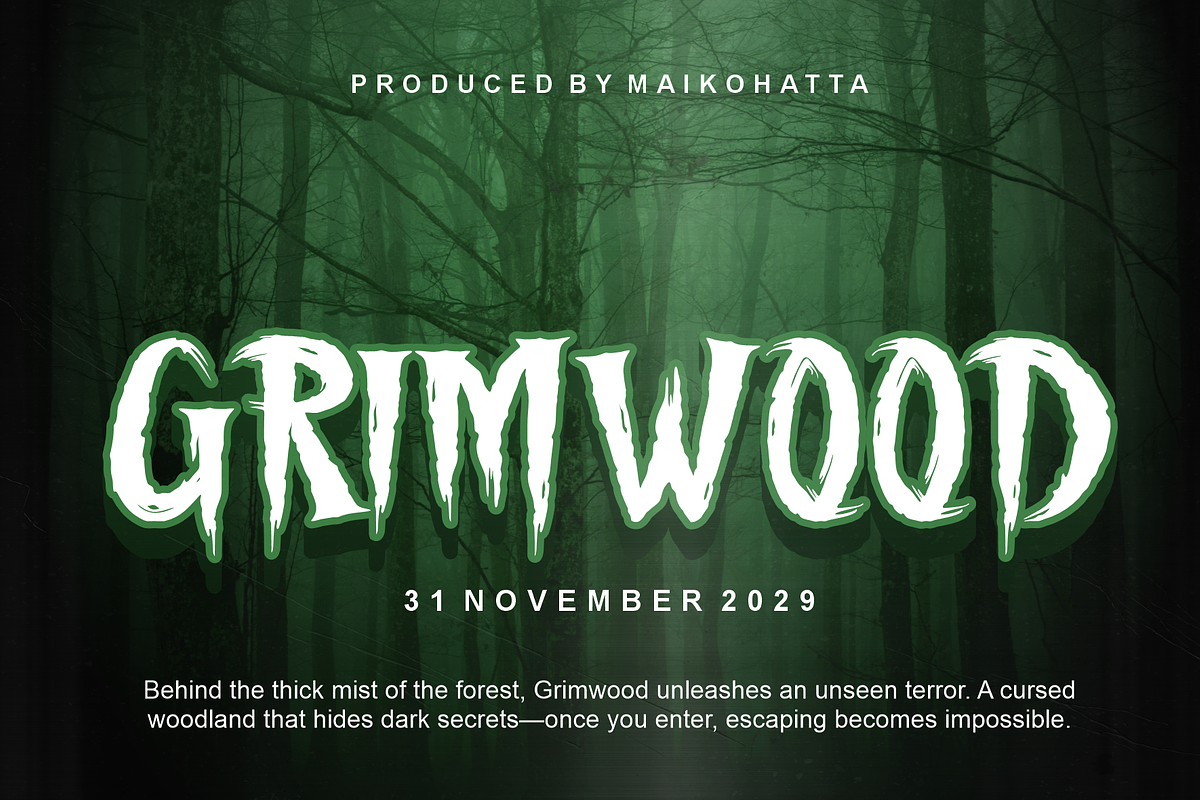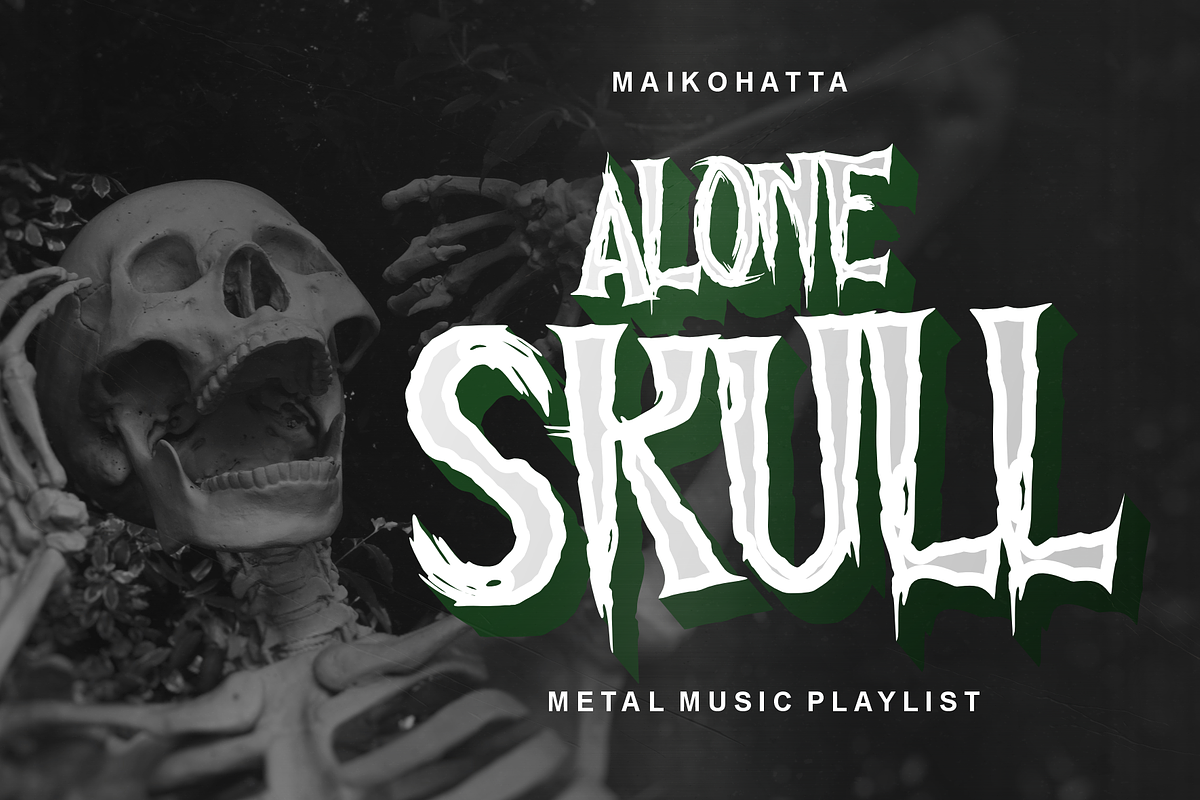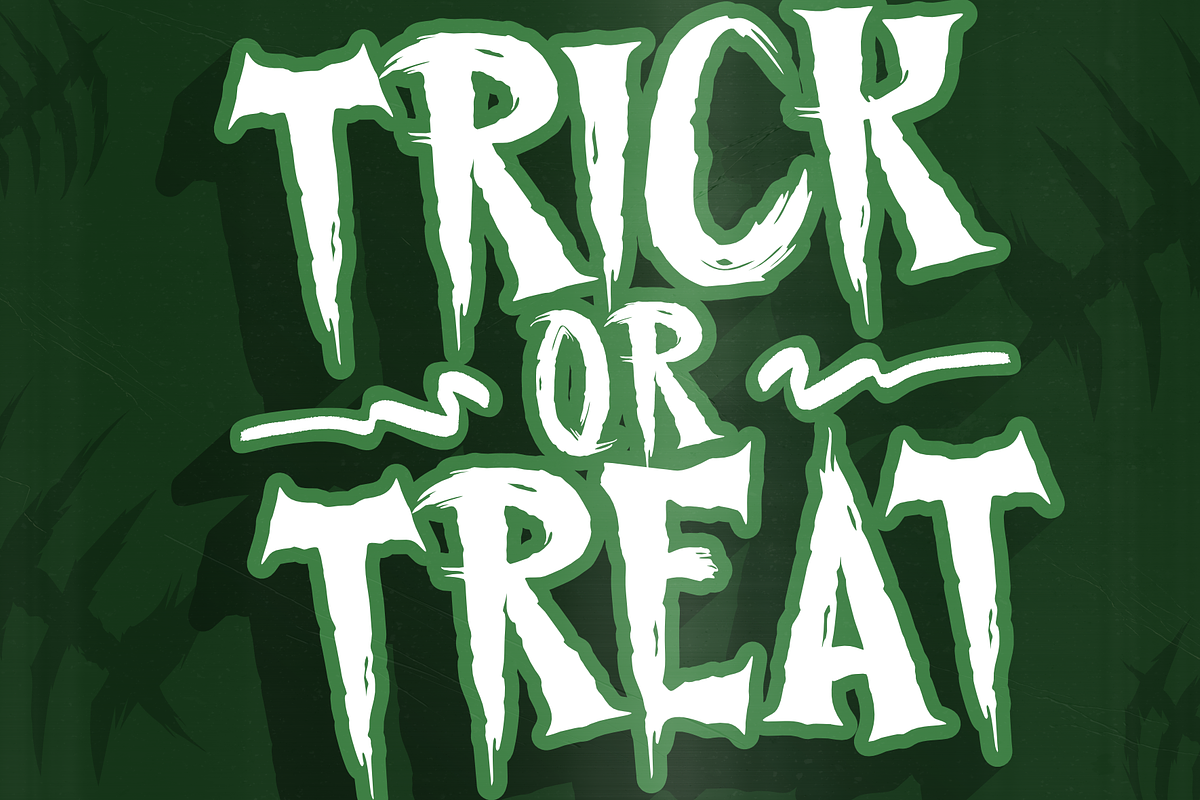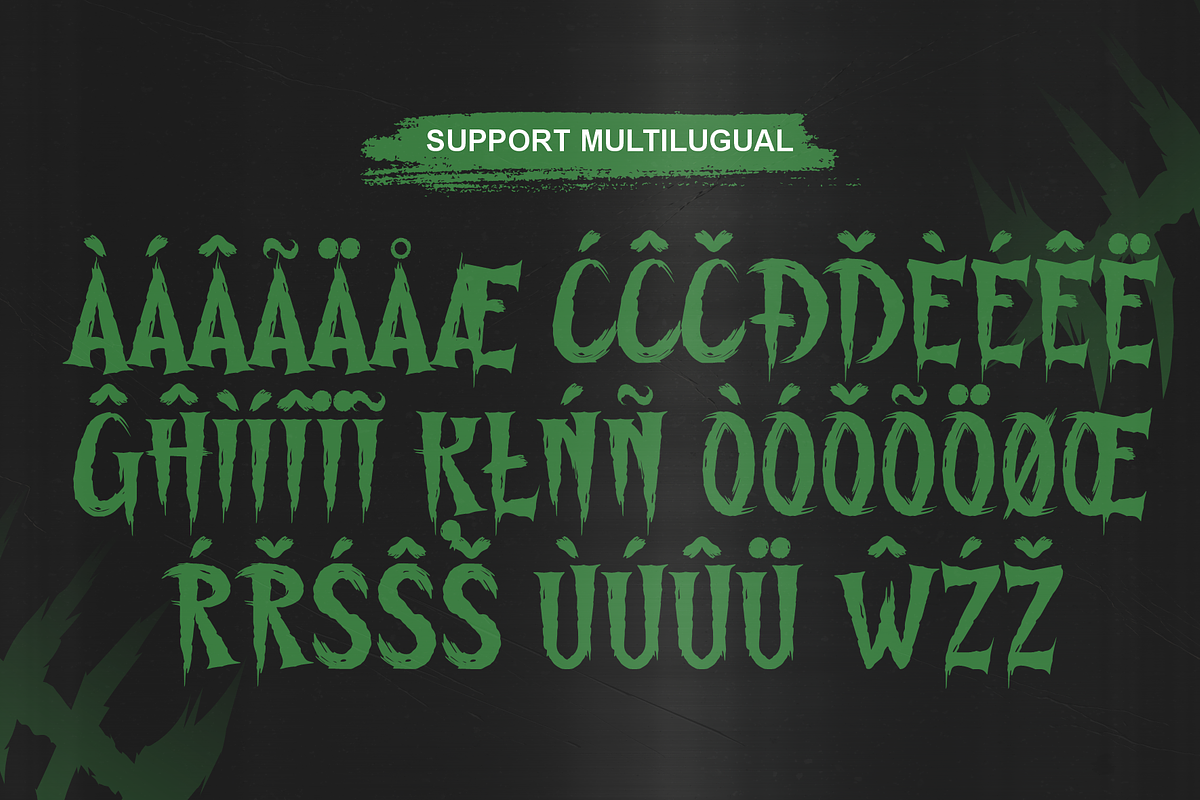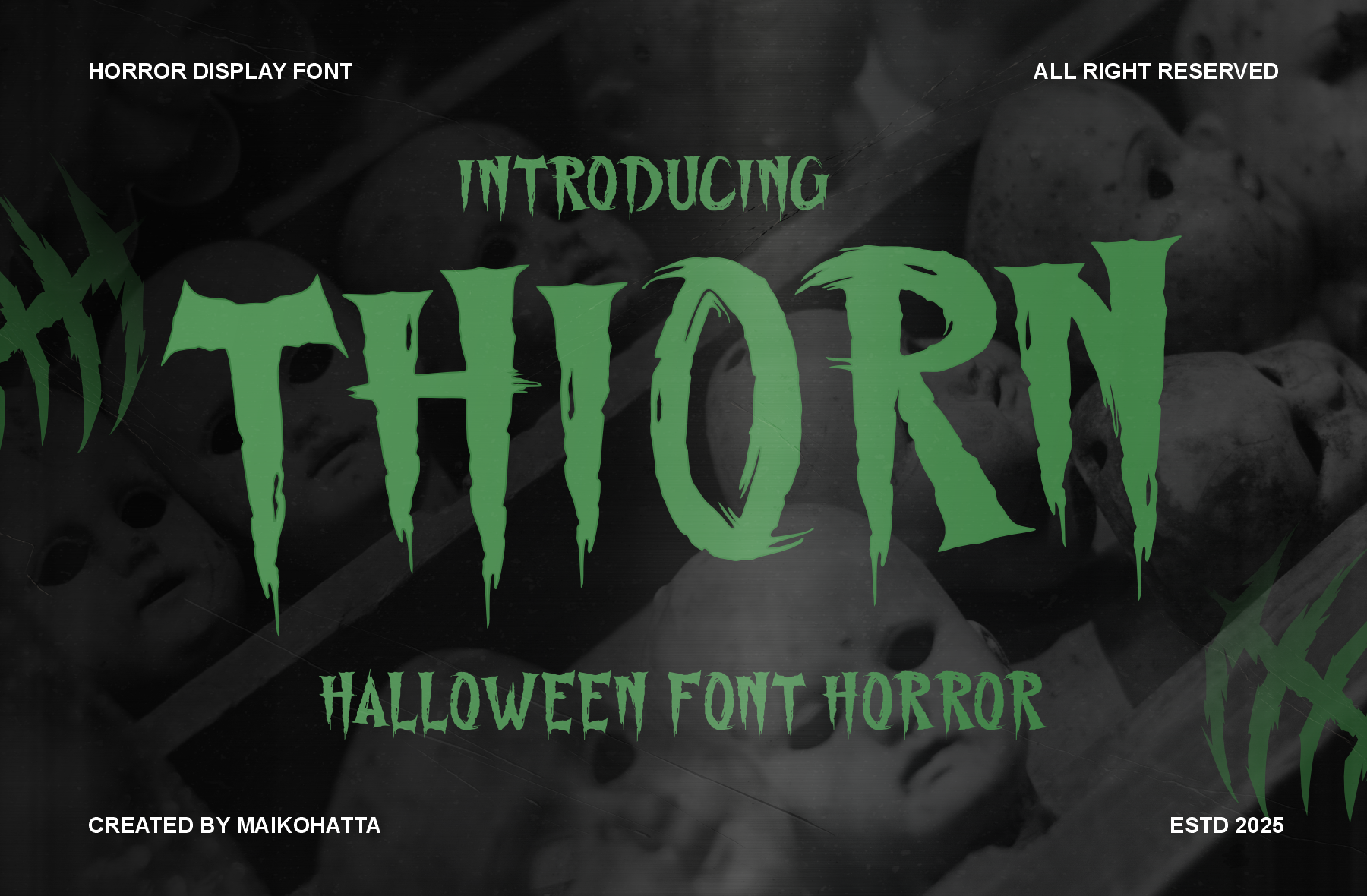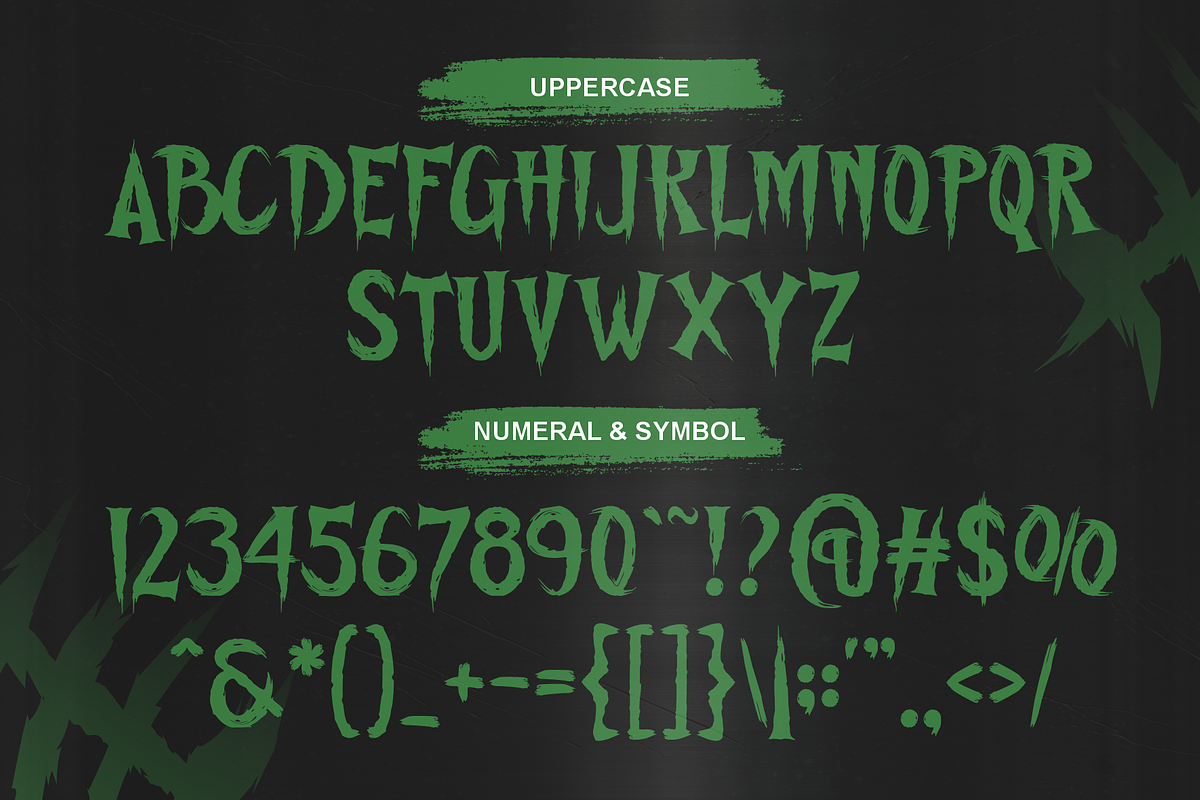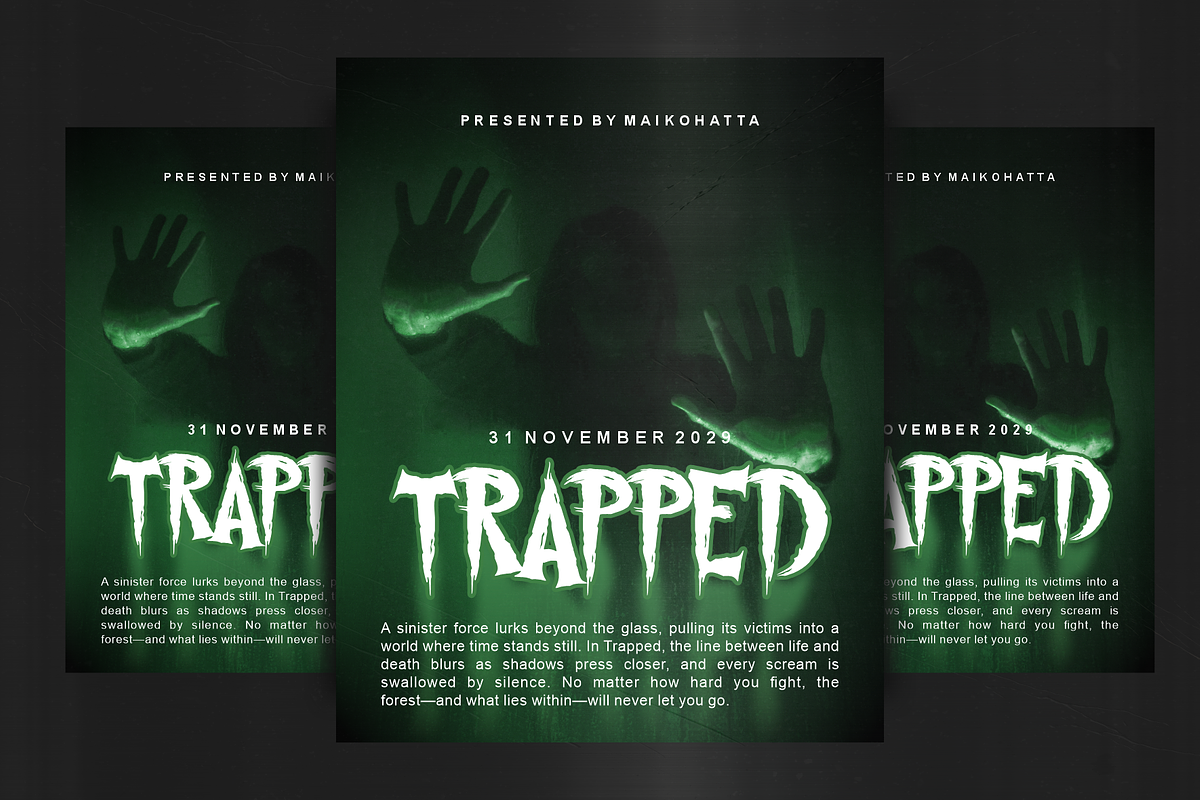
Thiorn - Halloween Font Horror
Shiorn – Halloween Font Horror
Shiorn is a bold and terrifying horror display font designed to bring chills to your creative projects. With its jagged strokes, dripping details, and eerie irregularities, this typeface perfectly captures the essence of Halloween and all things spooky. Ideal for horror movie posters, Halloween party invitations, creepy book covers, haunted house signage, or any design that demands a dark and sinister atmosphere.
Its distressed and hand-drawn look adds an authentic scary vibe, making Shiorn a must-have font for designers who want to leave a haunting impression.
Halloween designs
Horror movie titles
Creepy posters & flyers
Haunted house branding
Scary game graphics
Uppercase & lowercase letters